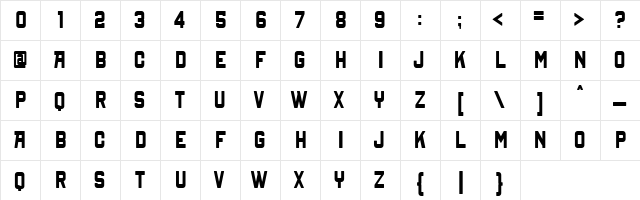
New York Line Regular
| Foundry | Kustomtype |
| Designer | Kustomtype |
Design Context for New York Line Typeface
New York Line takes a measured approach to typography — its balanced proportions and neutral character make it a reliable workhorse for both digital and print work.